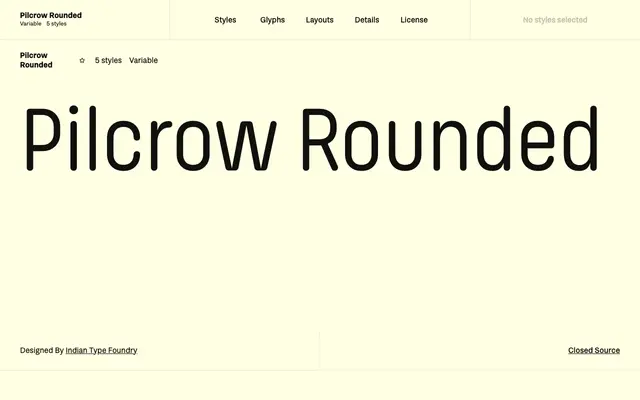
Pilcrow Rounded
A rounded, utilitarian sans from Indian Type Foundry, distributed free exclusively through Fontshare, drawing on the visual logic of street signage and industrial lettering.
Square-ish proportions and clean rounded terminals give Pilcrow Rounded a mechanical, signage-derived quality that reads well at small sizes on screen. The family runs from Regular to Heavy across five static weights plus a variable font, with no italics by design, the expectation being that weight contrast carries hierarchical emphasis instead. It sits within the broader Pilcrow family, of which Pilcrow and Pilcrow Soft are commercial releases, while this rounded variant is distributed free via Fontshare.
Square-like proportions with rounded terminals and a utilitarian, signage-derived construction place this firmly in the geometric sans category, with mechanical regularity across all weights.